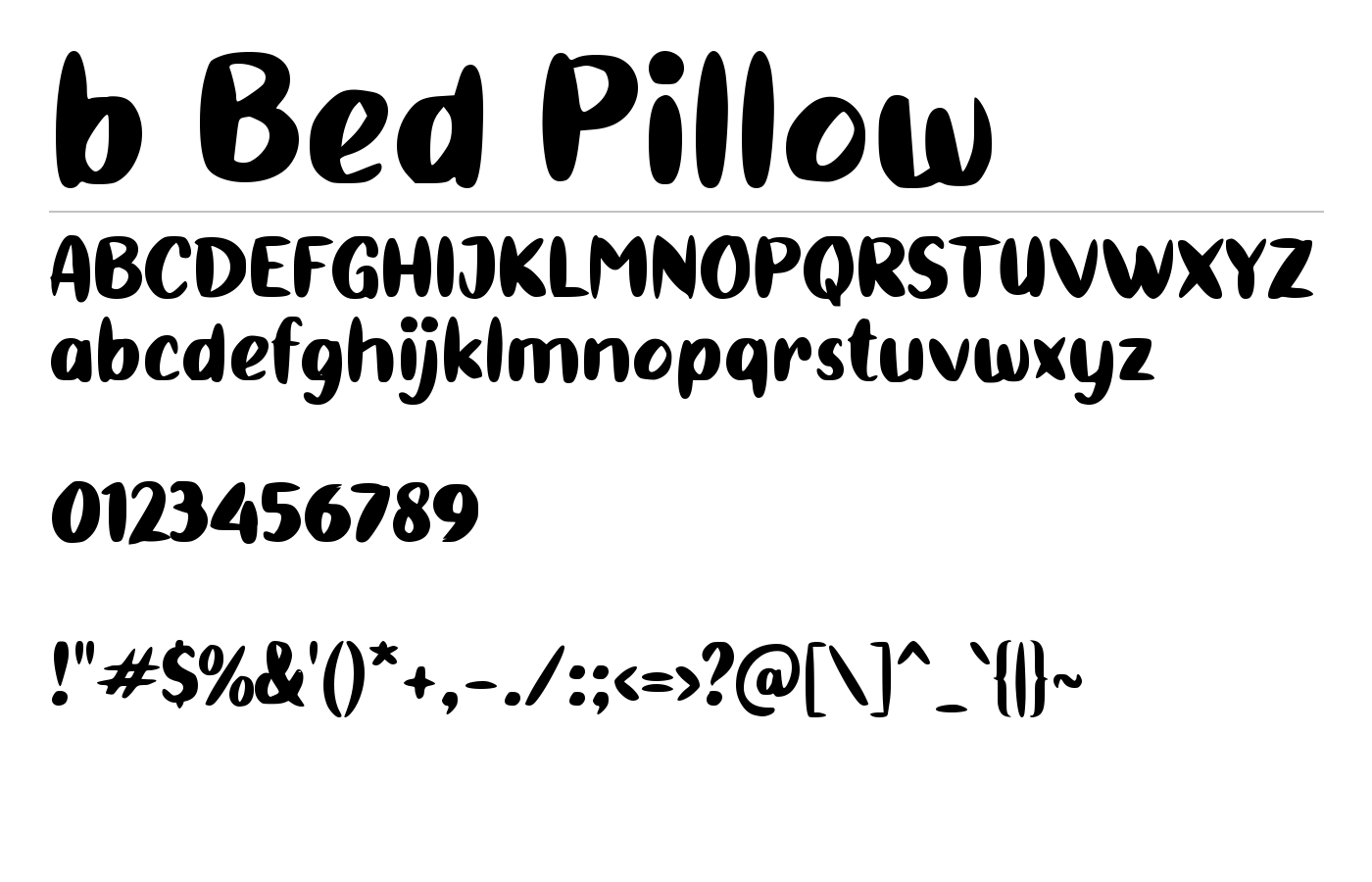
Bed Pillow is a playful, bold sans serif font with a friendly, hand-drawn feel. Its thick, rounded strokes and lively letterforms give it a casual, approachable personality, making it perfect for creative projects, children’s books, or informal branding that aims to feel warm and inviting. This font shines in headlines and display text where its unique, energetic style can truly stand out.
b Bed Pillow Font